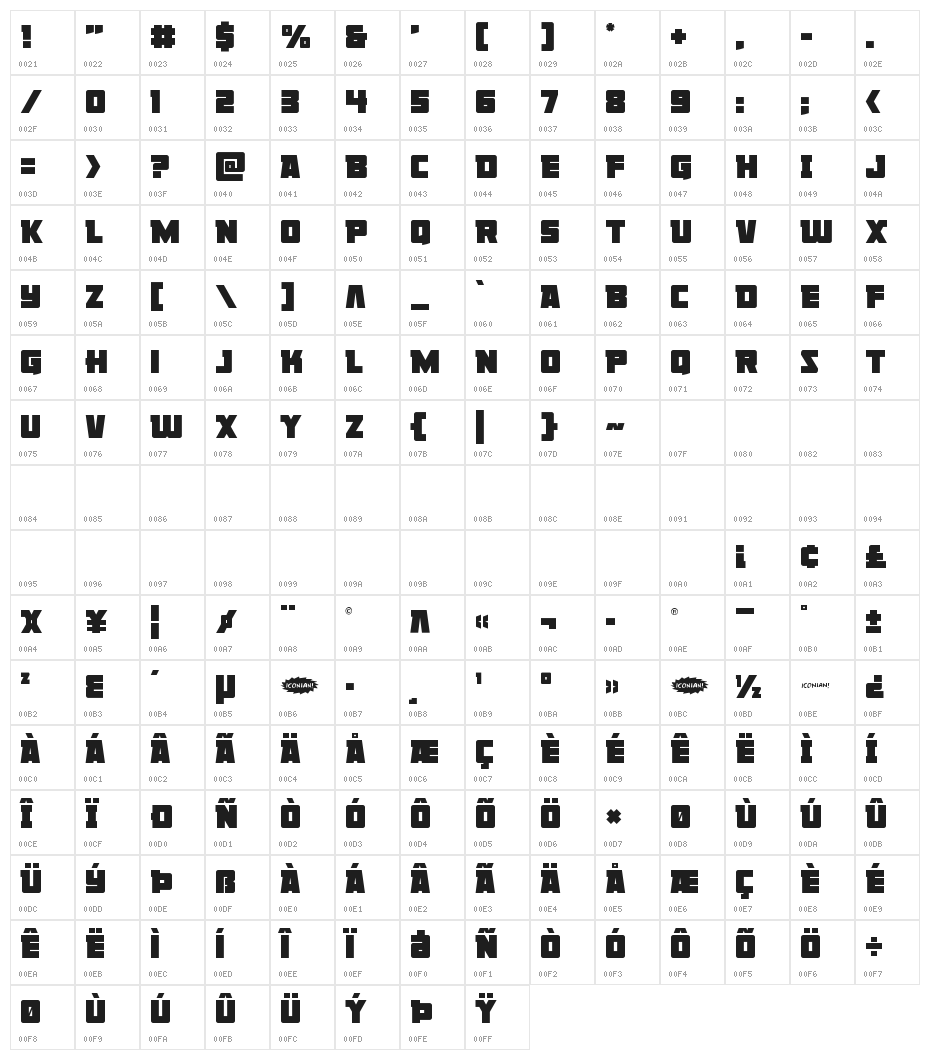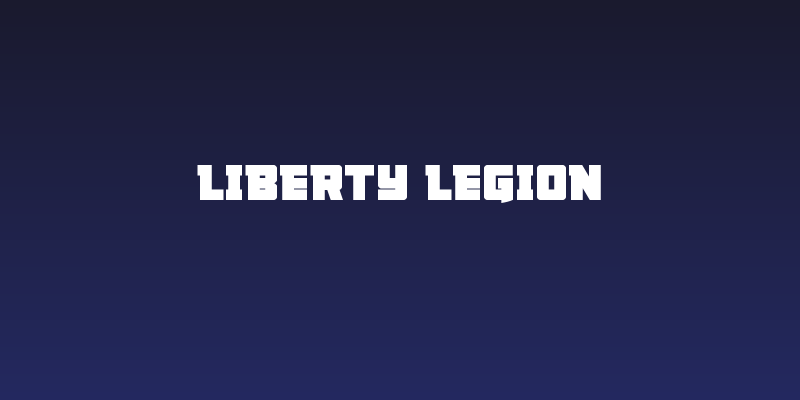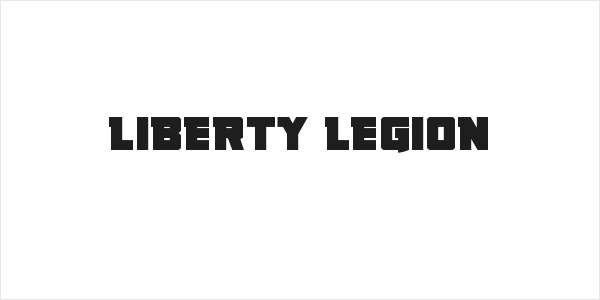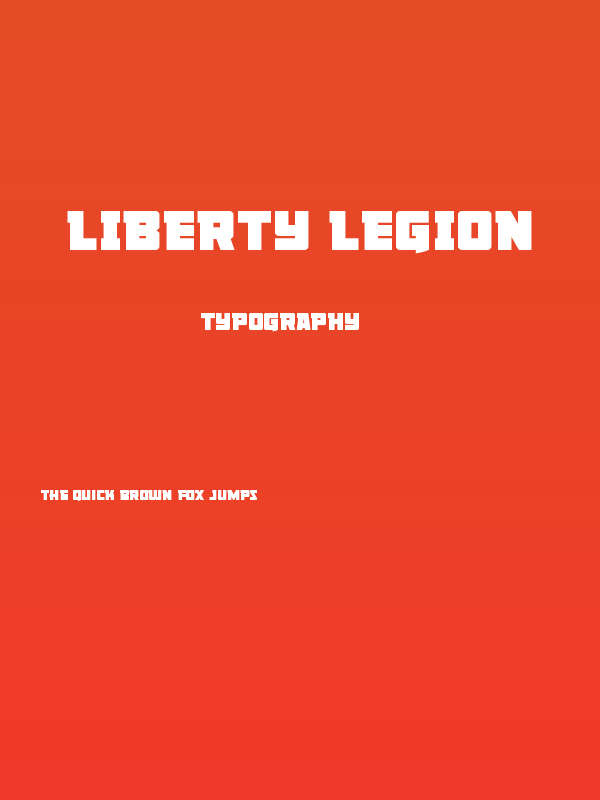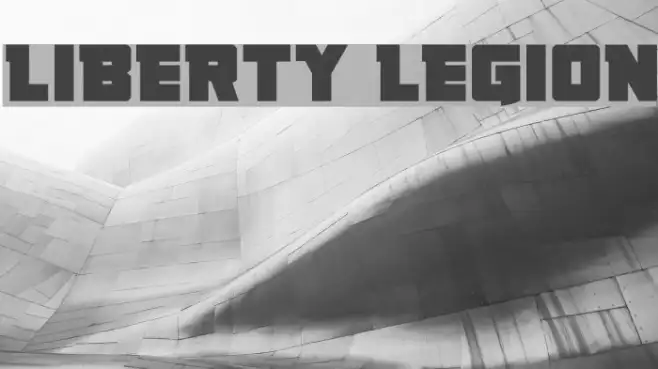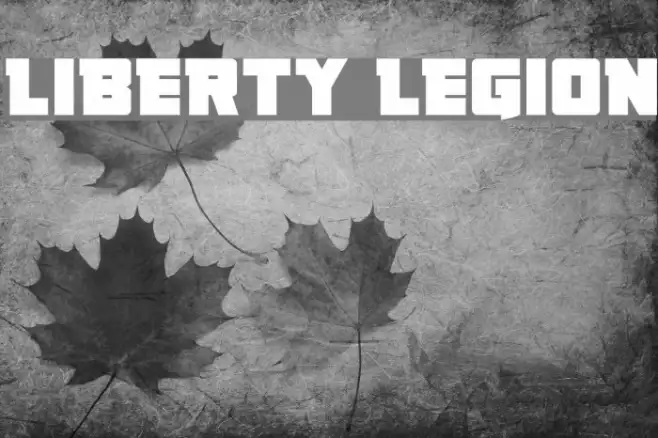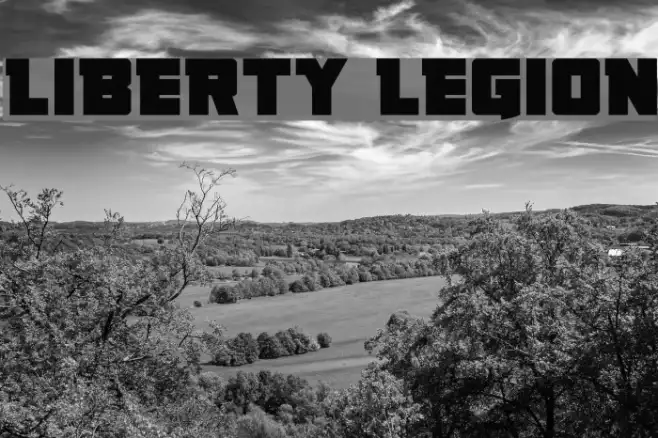
Liberty Legion Font
Liberty Legion Description
This font features a bold, geometric design with strong, angular lines and a commanding presence. The characters are blocky and robust, giving off a sense of strength and stability. The uppercase letters are particularly striking, with a uniform height and width that create a cohesive and powerful visual impact. The lowercase letters maintain the same boldness, ensuring consistency across the typeface. Numbers and special characters are equally bold, making them stand out prominently. The overall appearance is modern and assertive, suitable for making a strong statement in any design.
| Proposed Projects | Ideal for posters, headlines, branding, and any project requiring a strong, impactful typeface. |